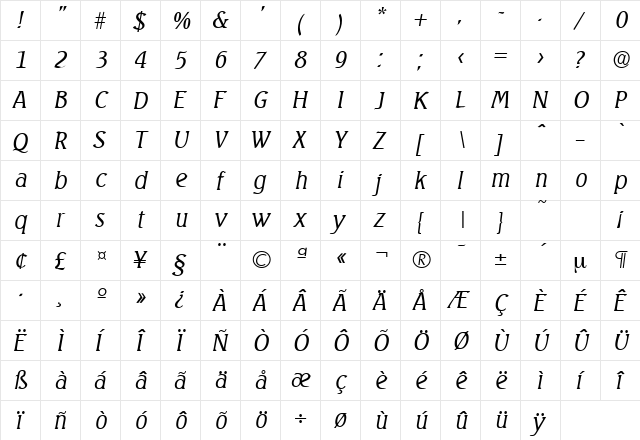
Seagull-Serial-Light RegularItalic Font Preview
Design Context for Seagull-Serial-Light Typeface
Seagull-Serial-Light takes a measured approach to typography — its balanced proportions and neutral character make it a reliable workhorse for both digital and print work. The dynamic lean of this cut emphasises speed and emphasis in any layout. Its slender proportions lend an understated elegance to any composition.